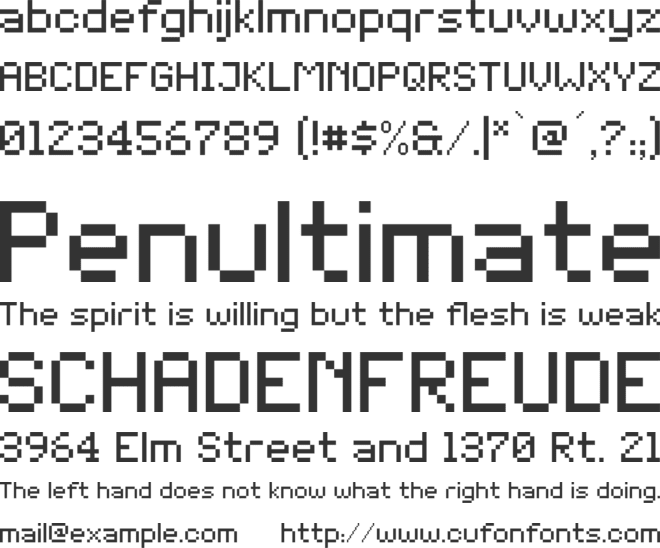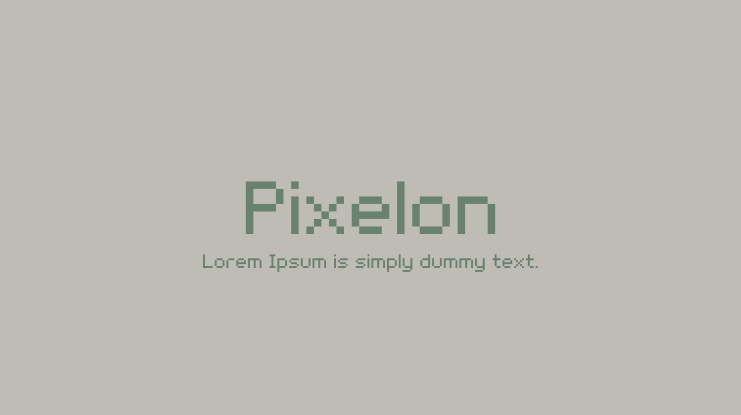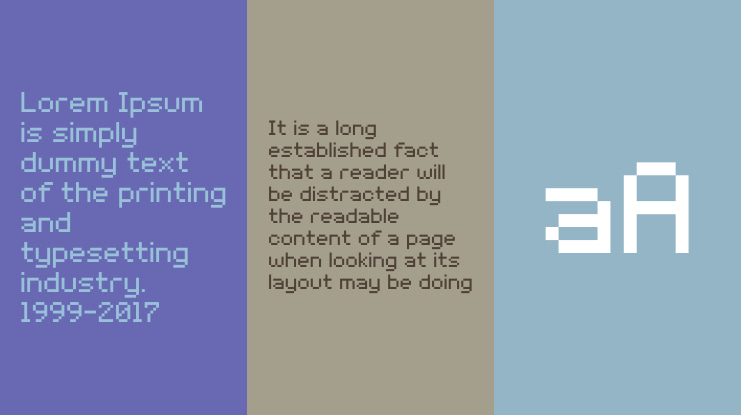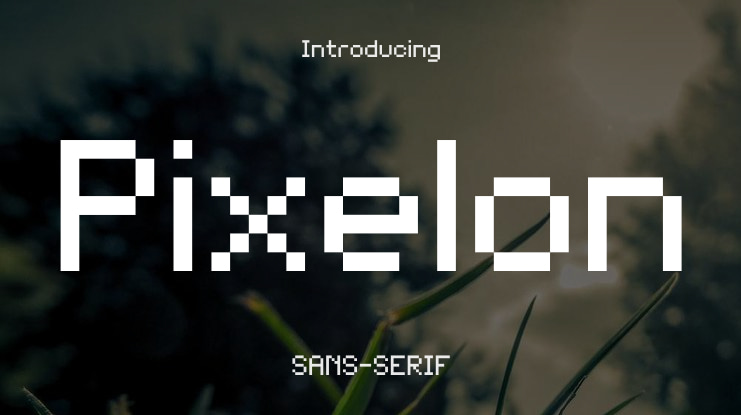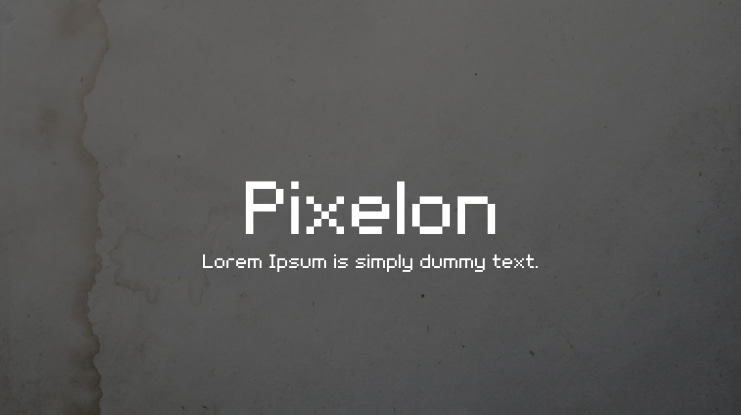
Pixelon Font
Looking to add a retro and distinctive vibe to your design? Pixelon offers the perfect pixelated font to bring back memories of the 8-bit era and vintage video games. Featuring sharp, blocky letters, this font is ideal for app games, logos, posters, titles, and any design element seeking to make a statement.
Ideal for graphic designers, game developers, retro enthusiasts, and anyone looking to infuse their designs with a touch of nostalgia. Elevate your projects with Pixelon and create distinctive designs that harken back to the pixelated charm of the past!
Pixelon font preview